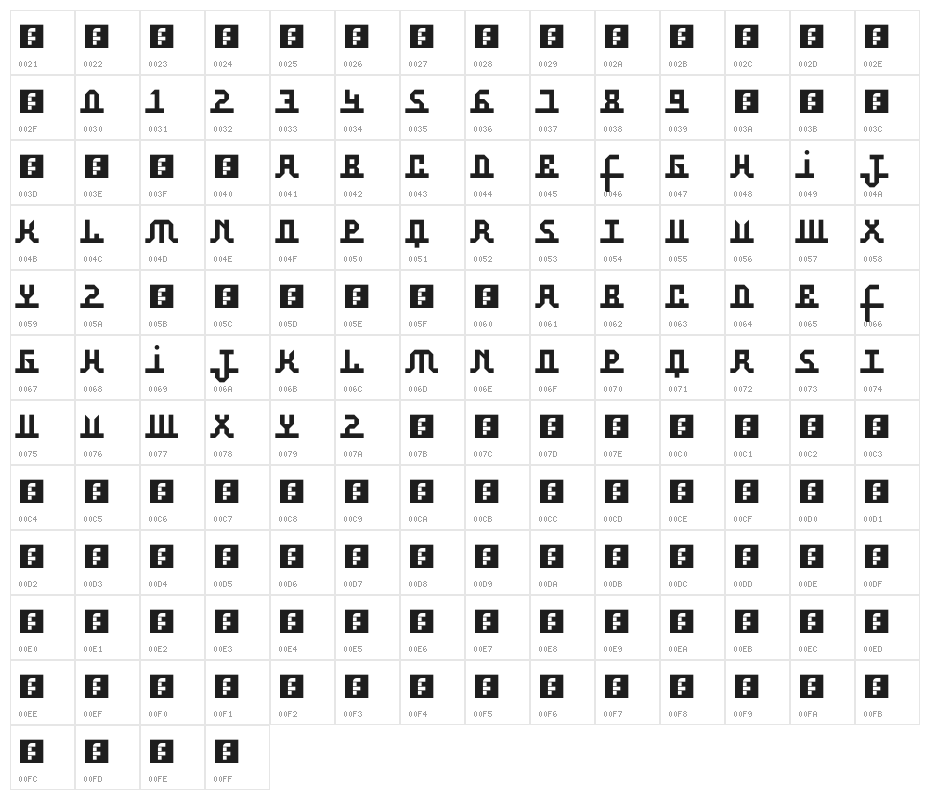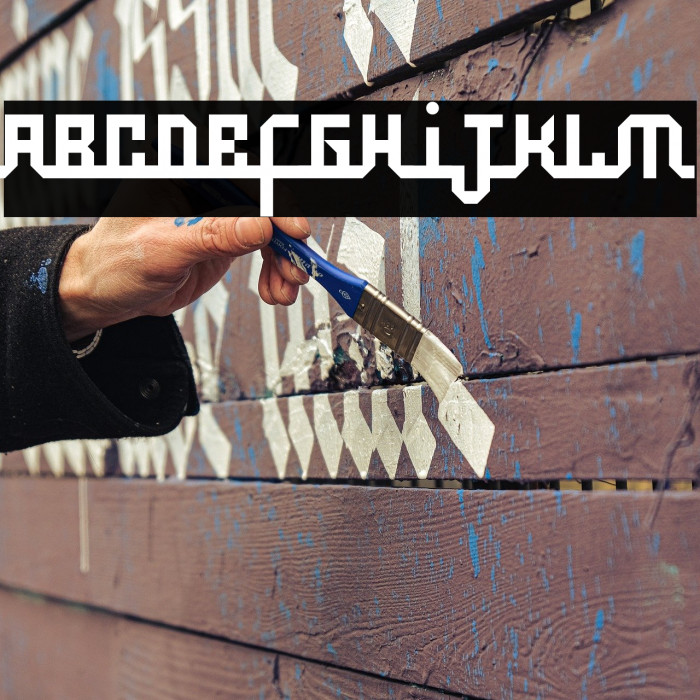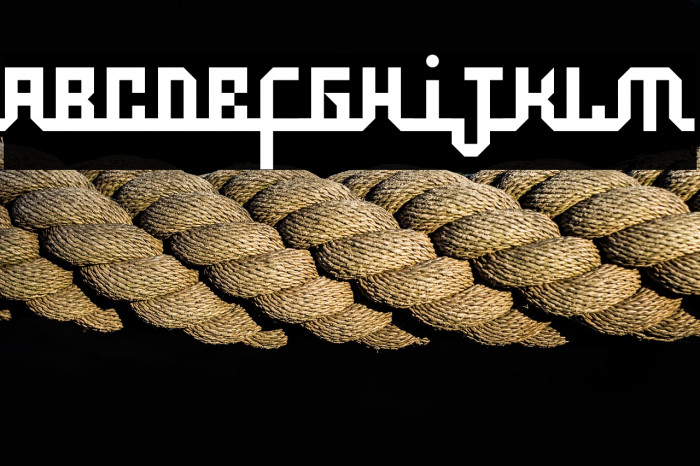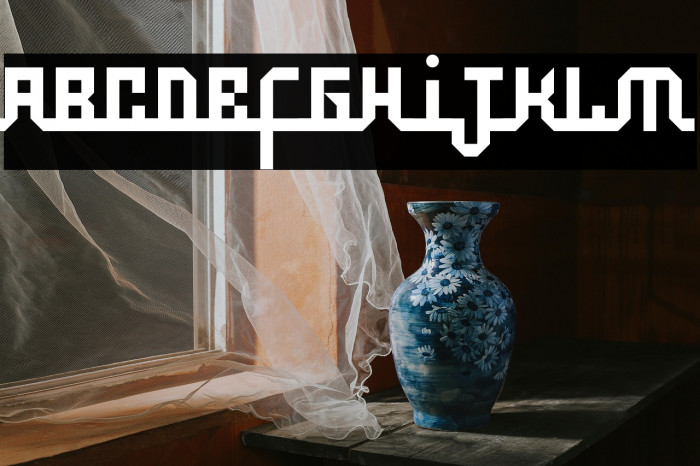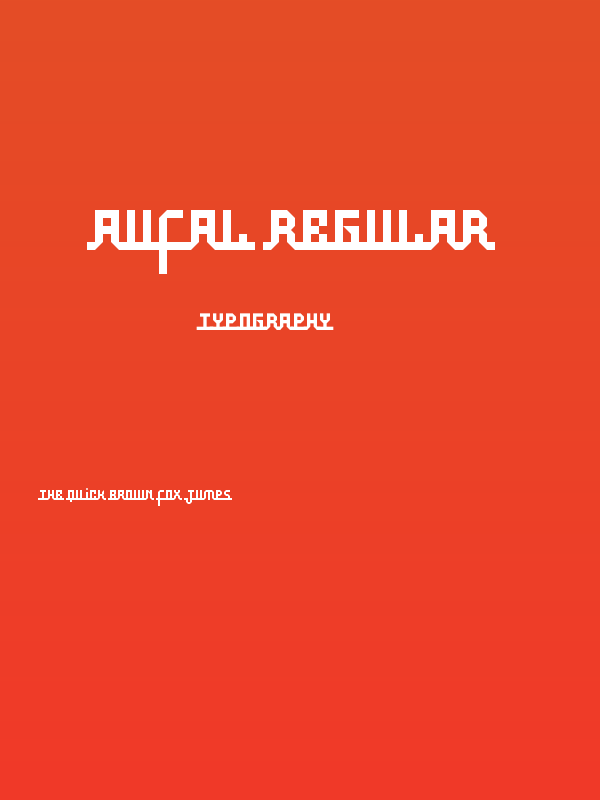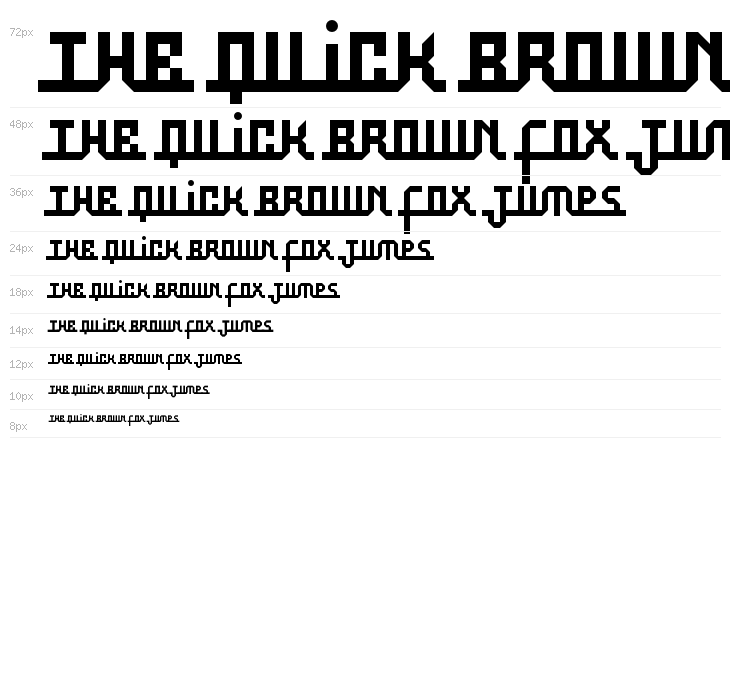
Aufal Regular Font
Aufal Regular Description
This font features a bold and geometric design with a distinctively modern and futuristic aesthetic. The characters are constructed with sharp angles and straight lines, creating a sense of precision and structure. The uppercase and lowercase letters maintain a consistent height, contributing to a uniform appearance. The numbers and special characters follow the same angular style, ensuring cohesion across all elements. The font's unique style makes it stand out, suitable for projects that require a strong visual impact.
| Proposed Projects | Ideal for technology branding, video game titles, sci-fi posters, and modern art installations. |